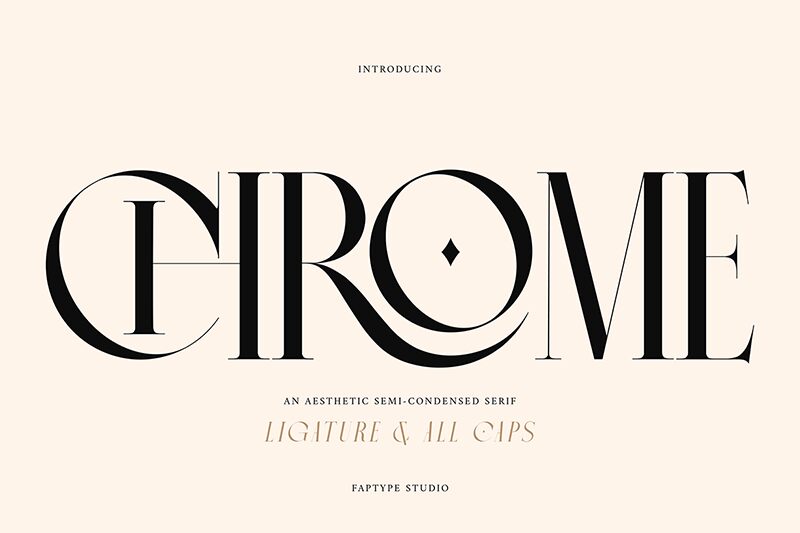
Chrome Slab font from Ferry Ardana Putra is a condensed serif font that captures the balance between elegance and modernity, with decorative elements and strong geometric forms. What makes this typeface stand out is its unique charm which comes as a result of the subtle Art Deco influences in some of its curves.